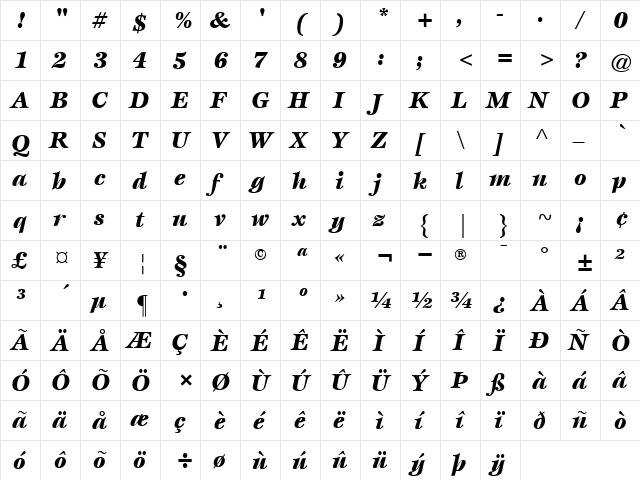
ITCEsprit-Black BlackItalic Font Preview
ITCEsprit-Black BlackItalic
Design Context for ITCEsprit-Black Typeface
ITCEsprit-Black is a composed and adaptable typeface that performs quietly and consistently across a wide range of design contexts. Its italic angle brings a sense of urgency and motion to the letterforms.
Pro Tip: Try ITCEsprit-Black for annotation and caption copy alongside an upright companion — the contrast in angle creates a dynamic but ordered typographic system.